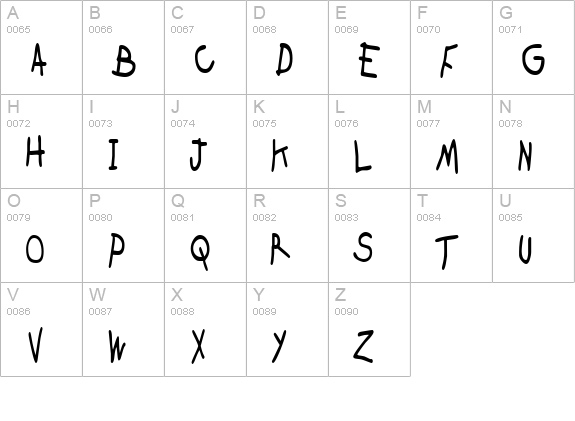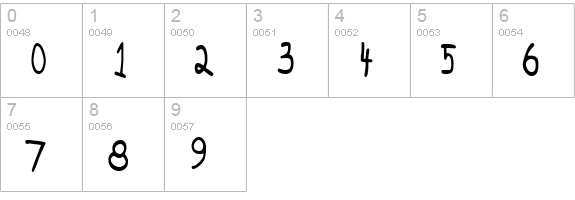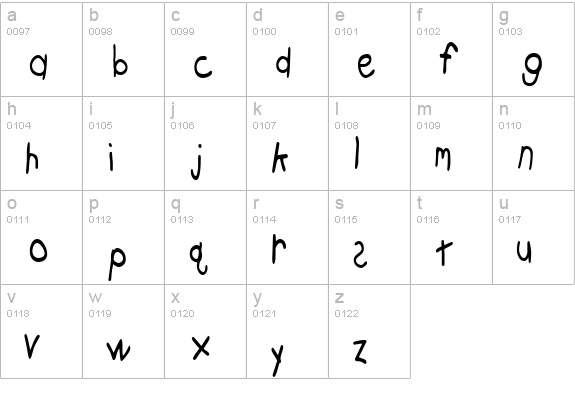
CrayonCondensed Font Details
CrayonCondensed font is a playful and whimsical typeface that mimics the look of hand-drawn crayon strokes. With its condensed design, this font is perfect for creating eye-catching headings, banners, and other design elements that require a unique touch. The uneven edges and imperfect lines give CrayonCondensed a charming and organic feel that will add character to any project. Best of all, CrayonCondensed font is completely free to download at FontsMarket.com. Whether you're working on a school project, children's book, or simply want to add a fun twist to your designs, CrayonCondensed is a fantastic choice. Embrace the creativity and spontaneity of crayon art with this delightful font today!